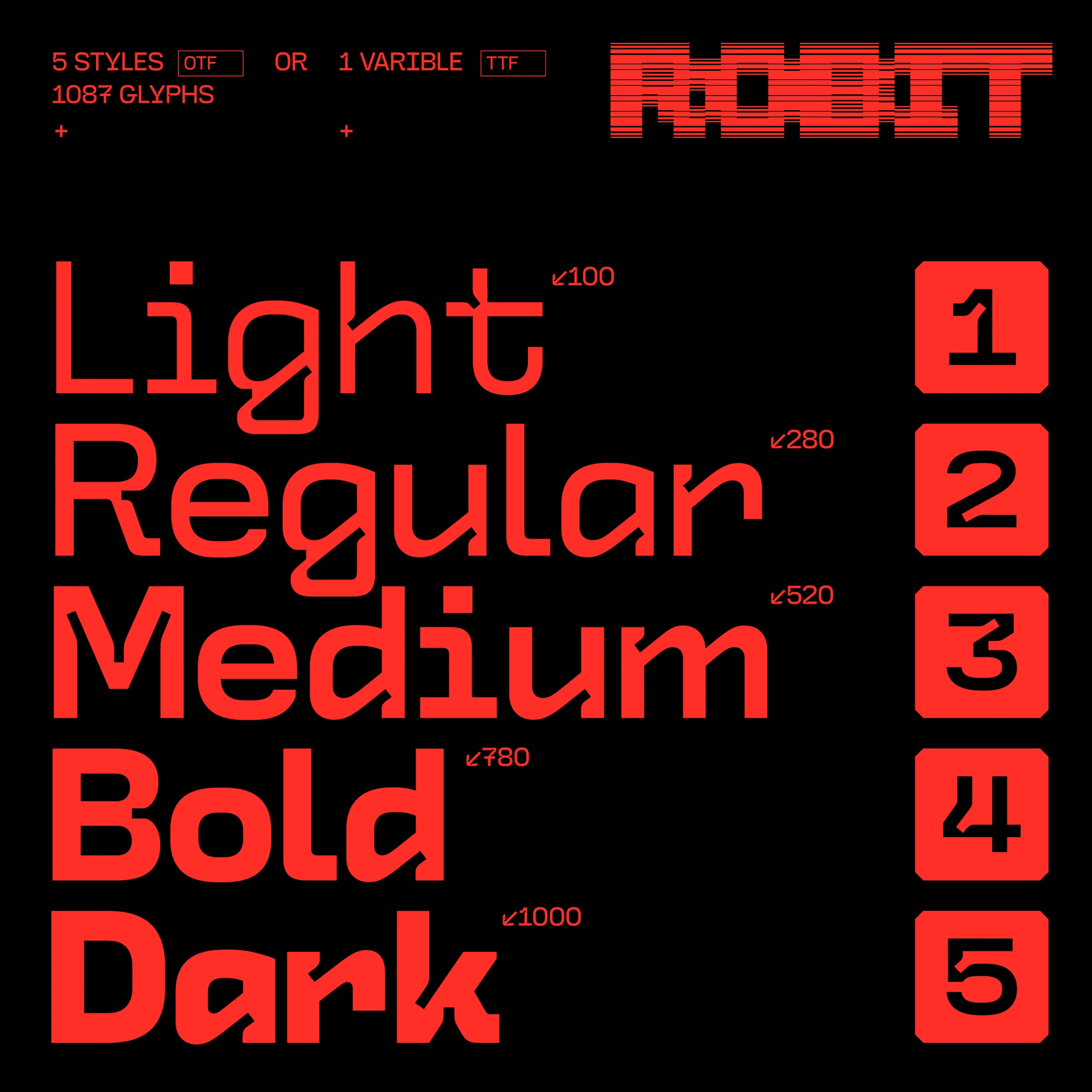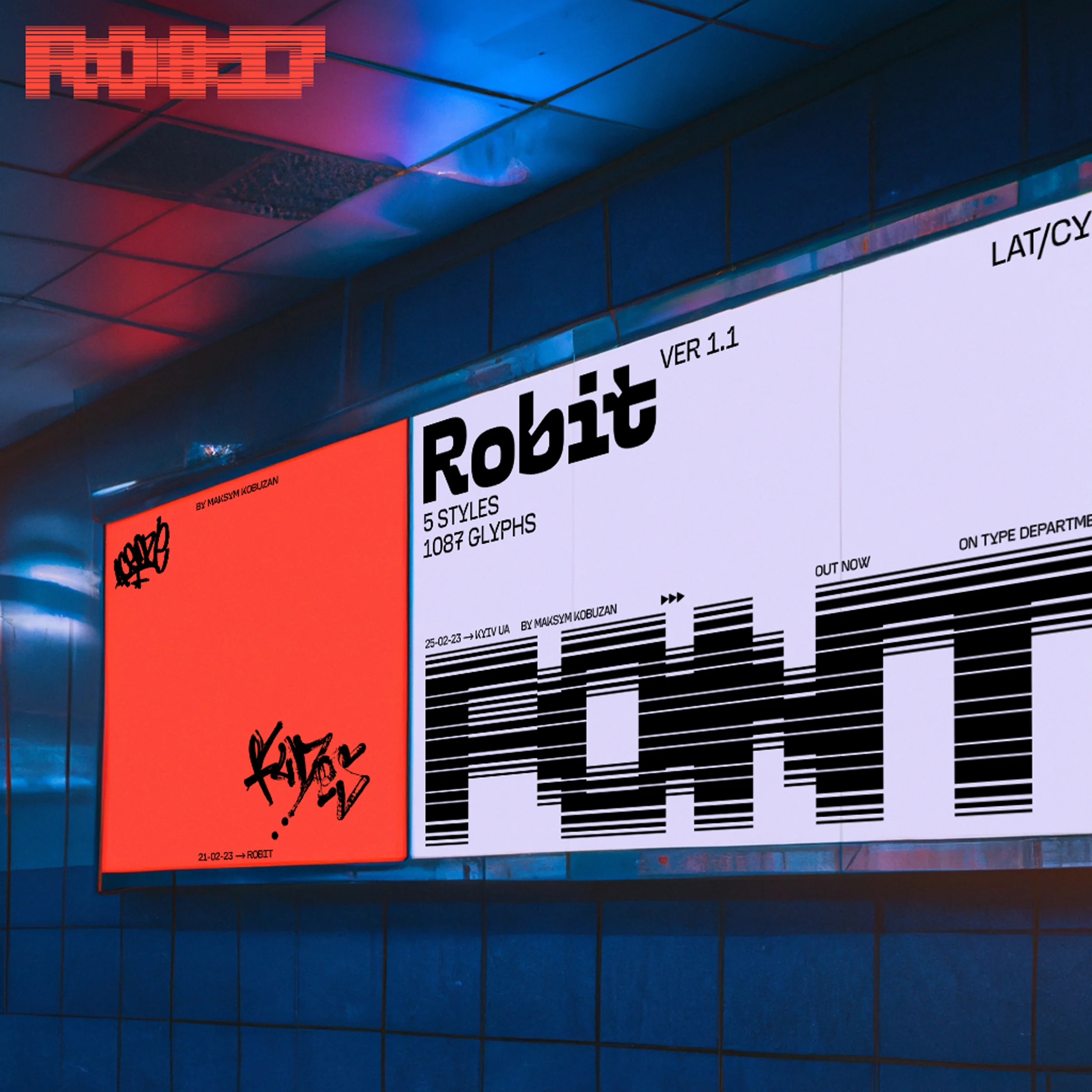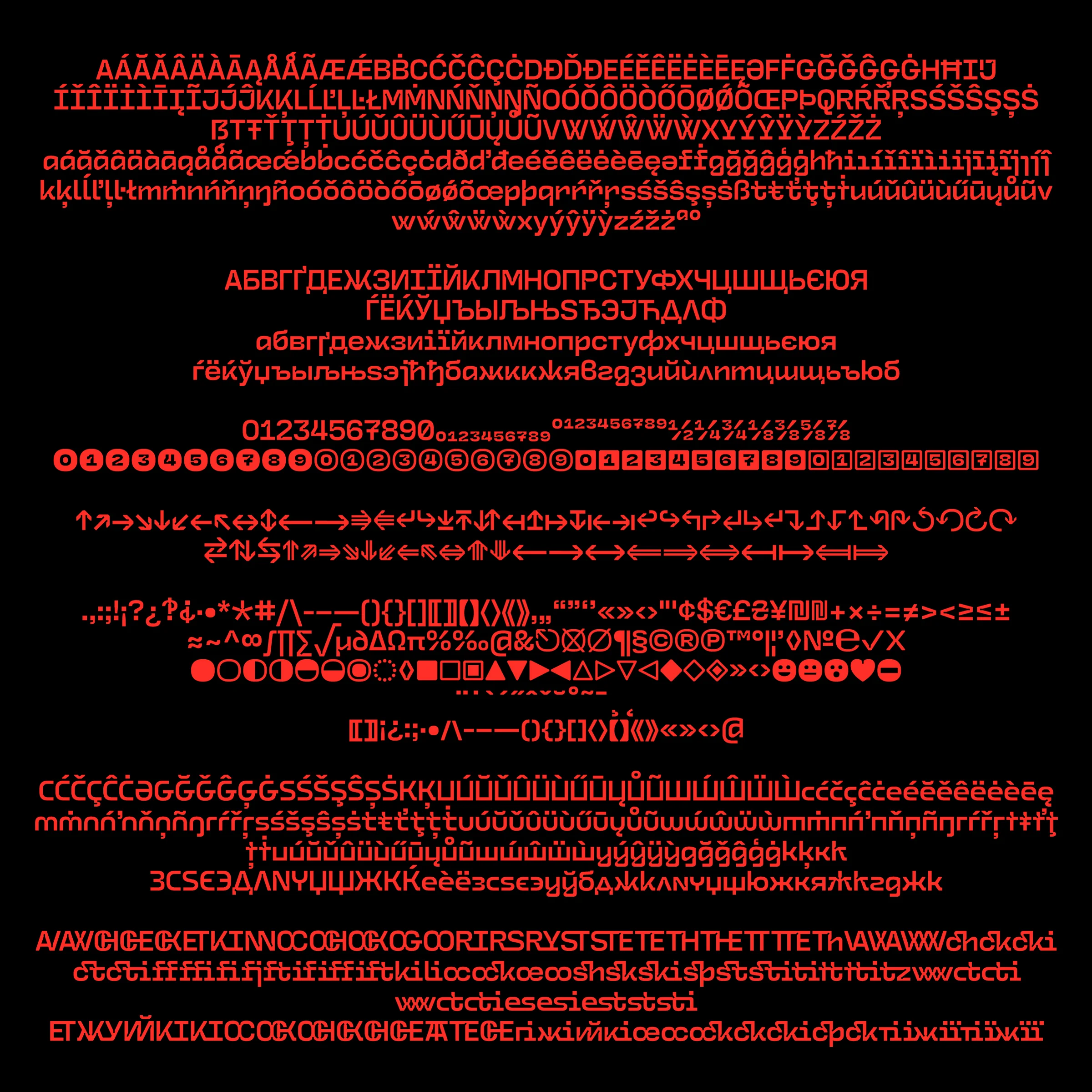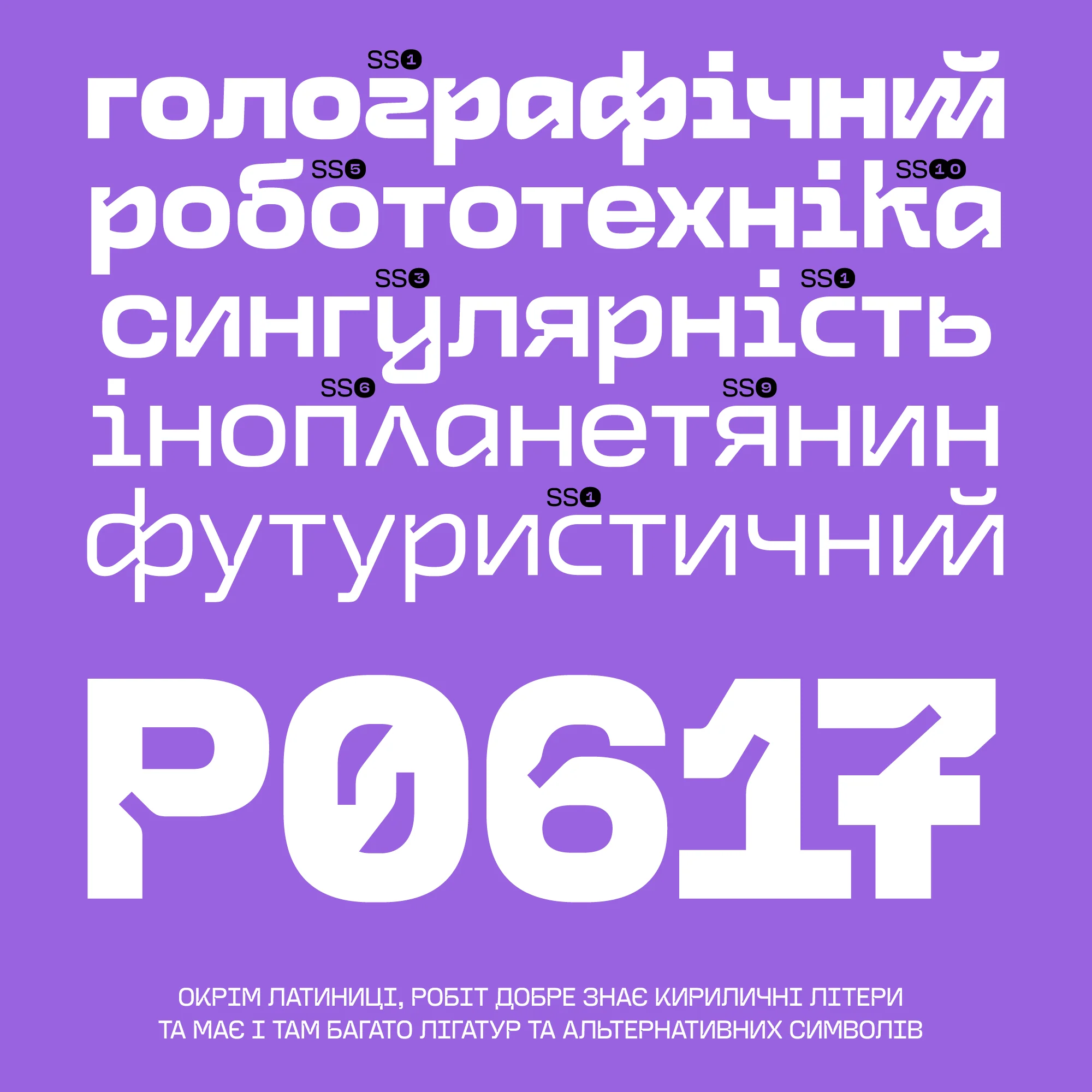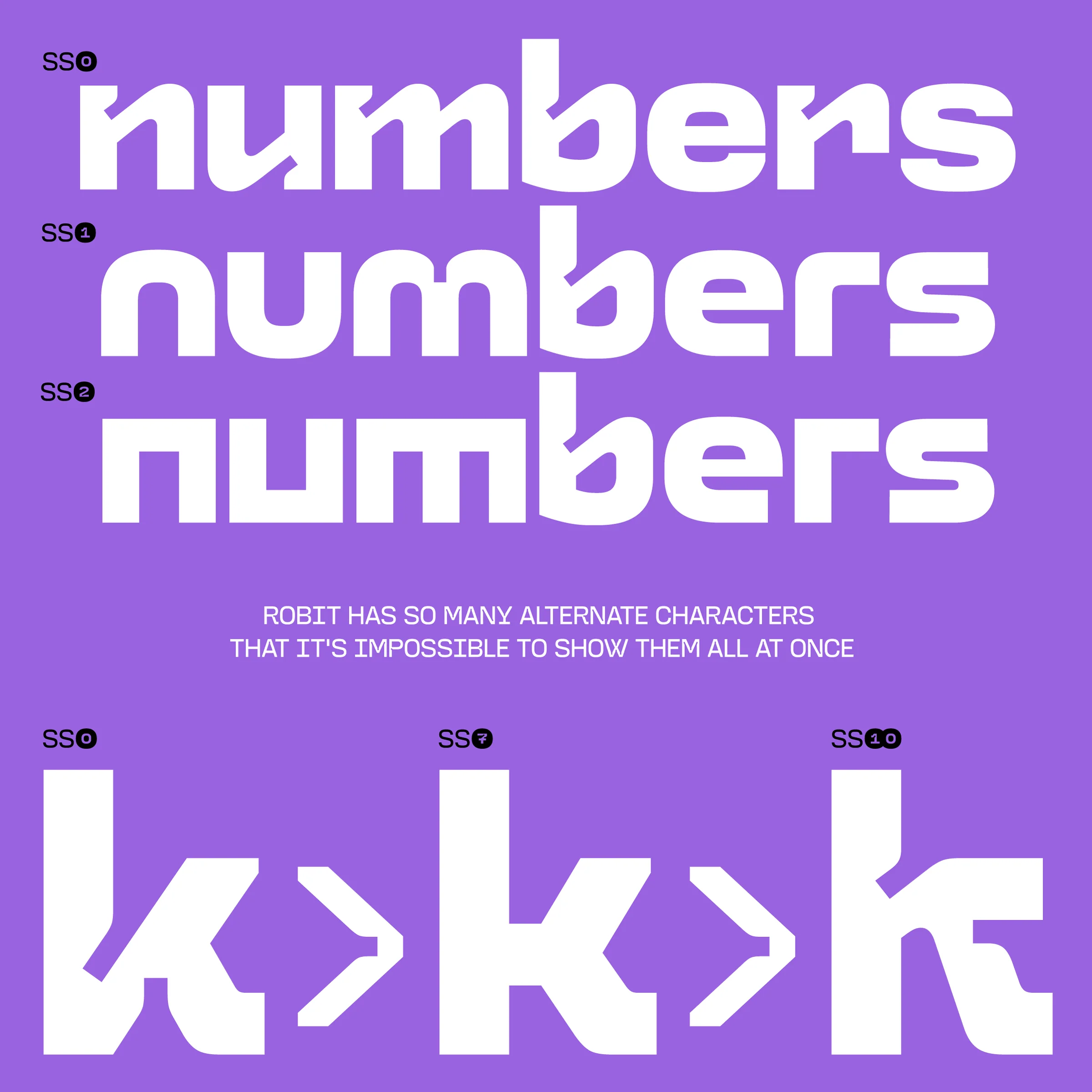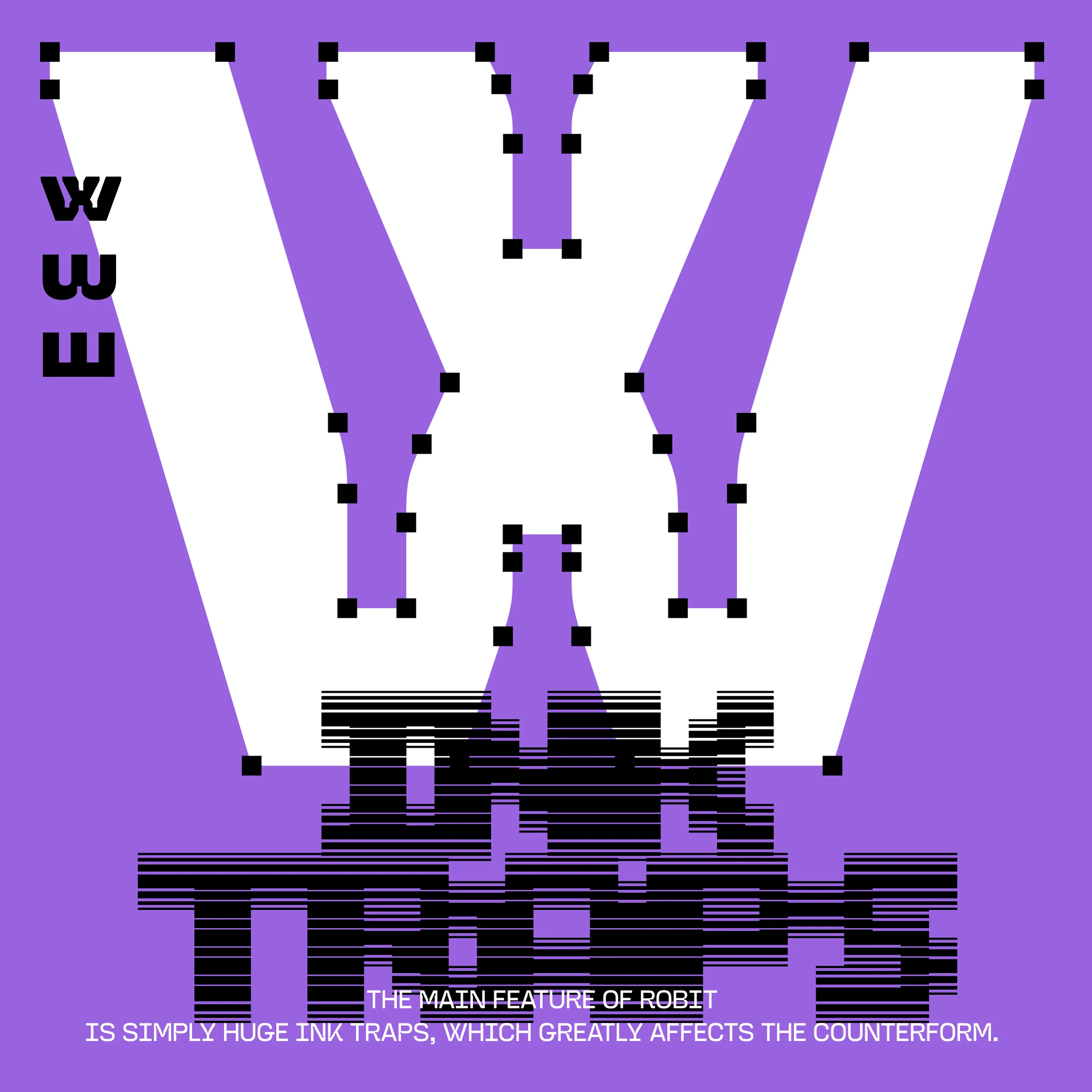
T1 Robit
T1 ROBIT is a futuristic brutalist typeface featuring substantial ink traps and humanistic forms. Drawing inspiration from sci-fi visual culture, futurism, and industrial design, ROBIT offers 5 styles enhanced with variable font technology, inviting extensive experimentation.
Embedded within its OpenType features are stylistic alternates for creative exploration, alongside an extensive array of unique ligatures, arrows, icons, and more. ROBIT is designed to empower designers with versatile tools for crafting distinctive, tech-forward designs across various applications.
Equipped with Extended Latin and Cyrillic support.